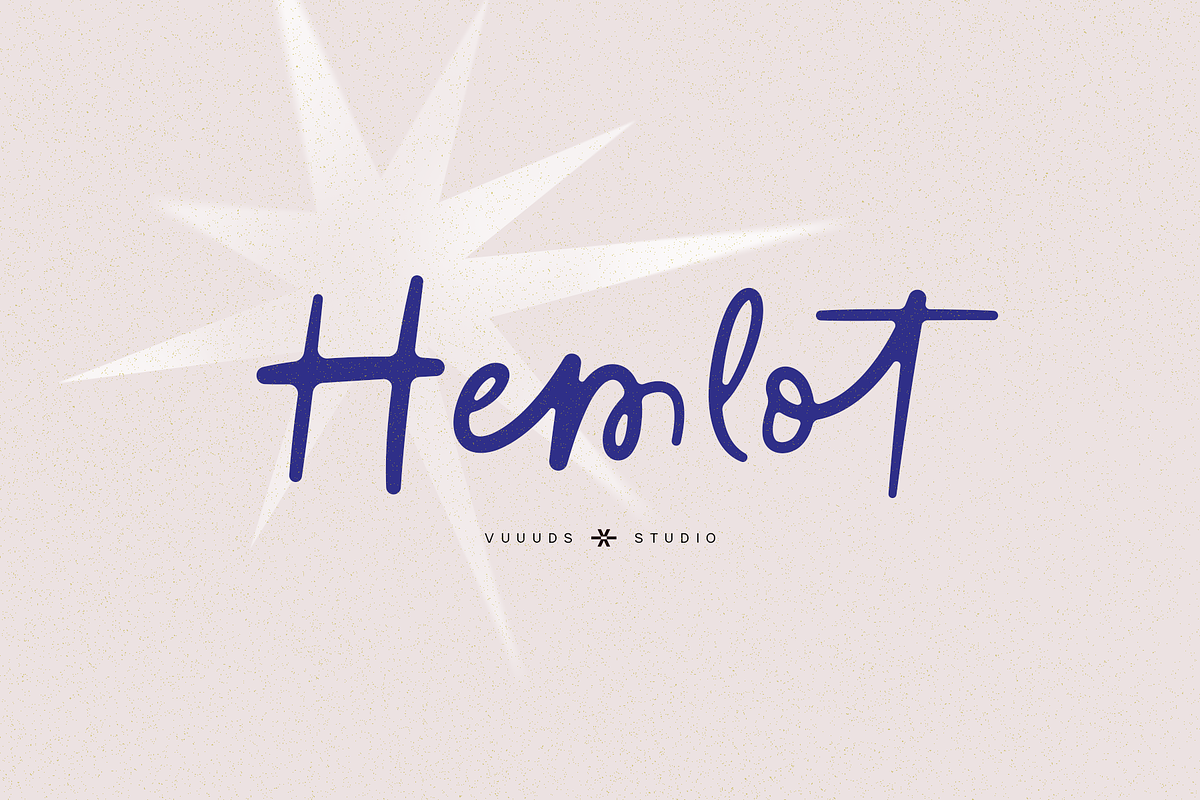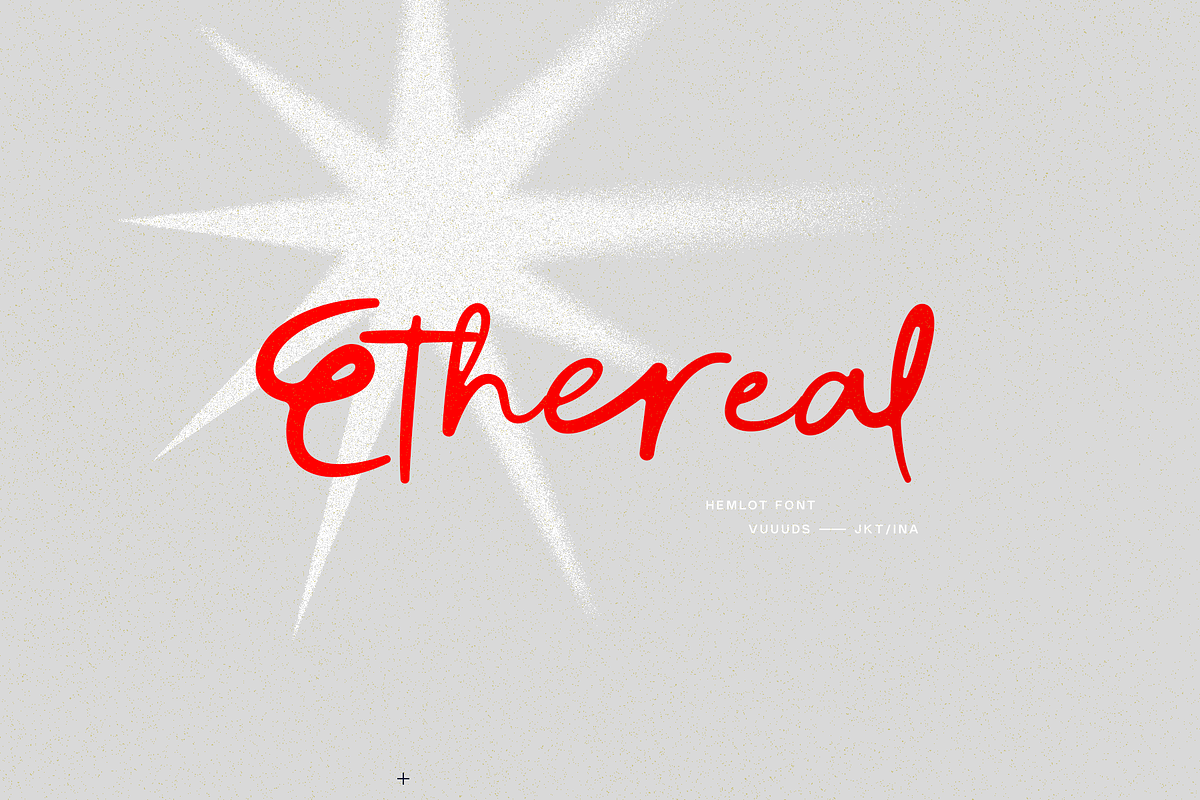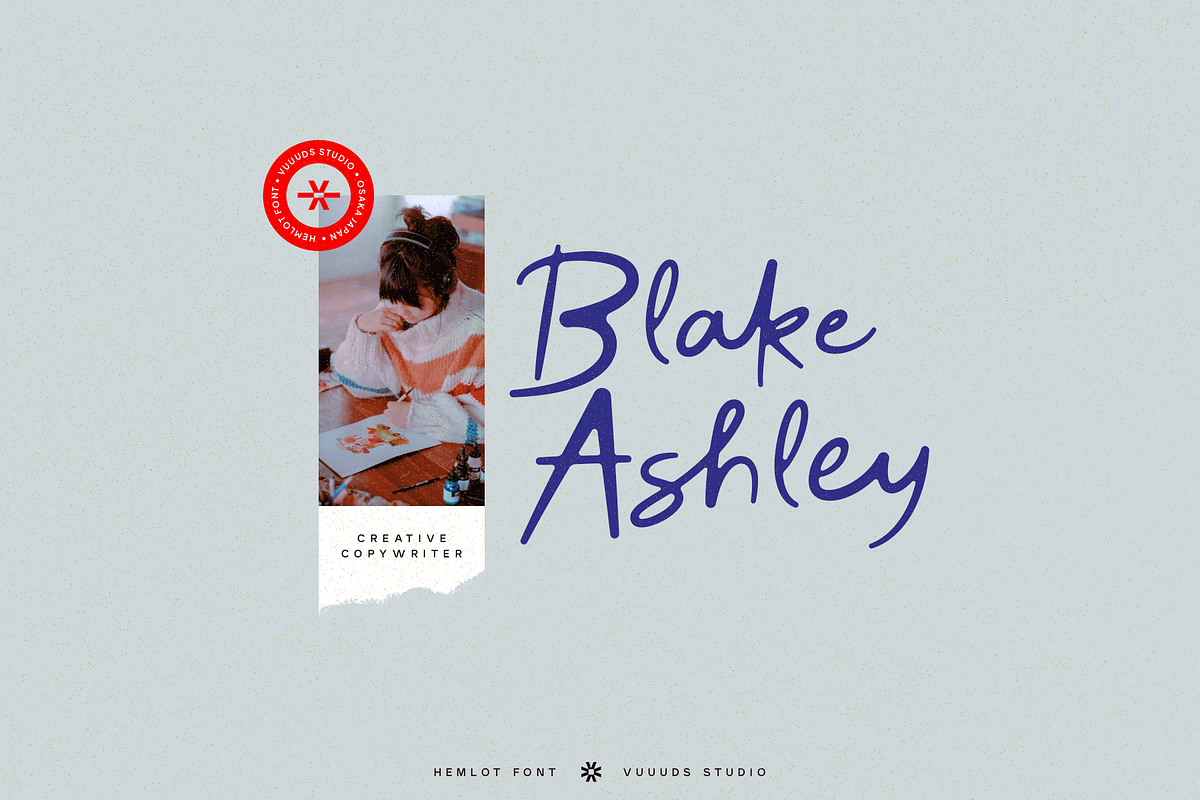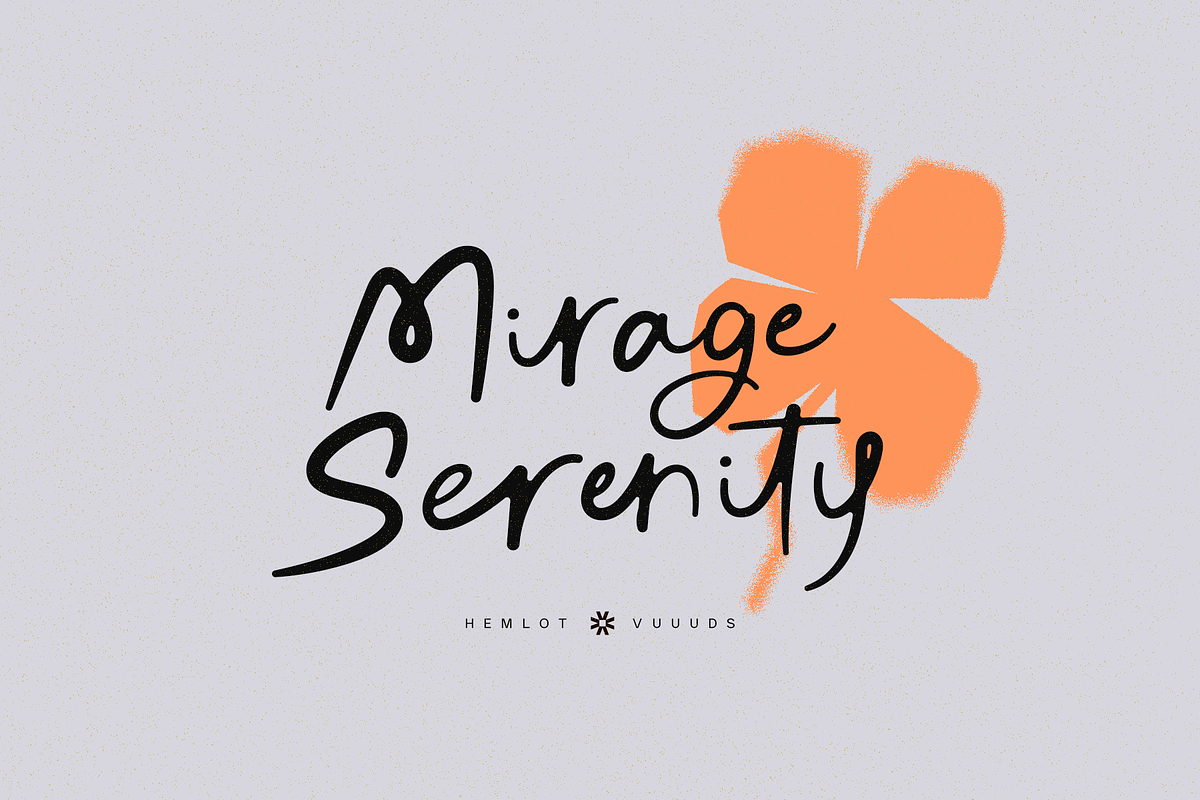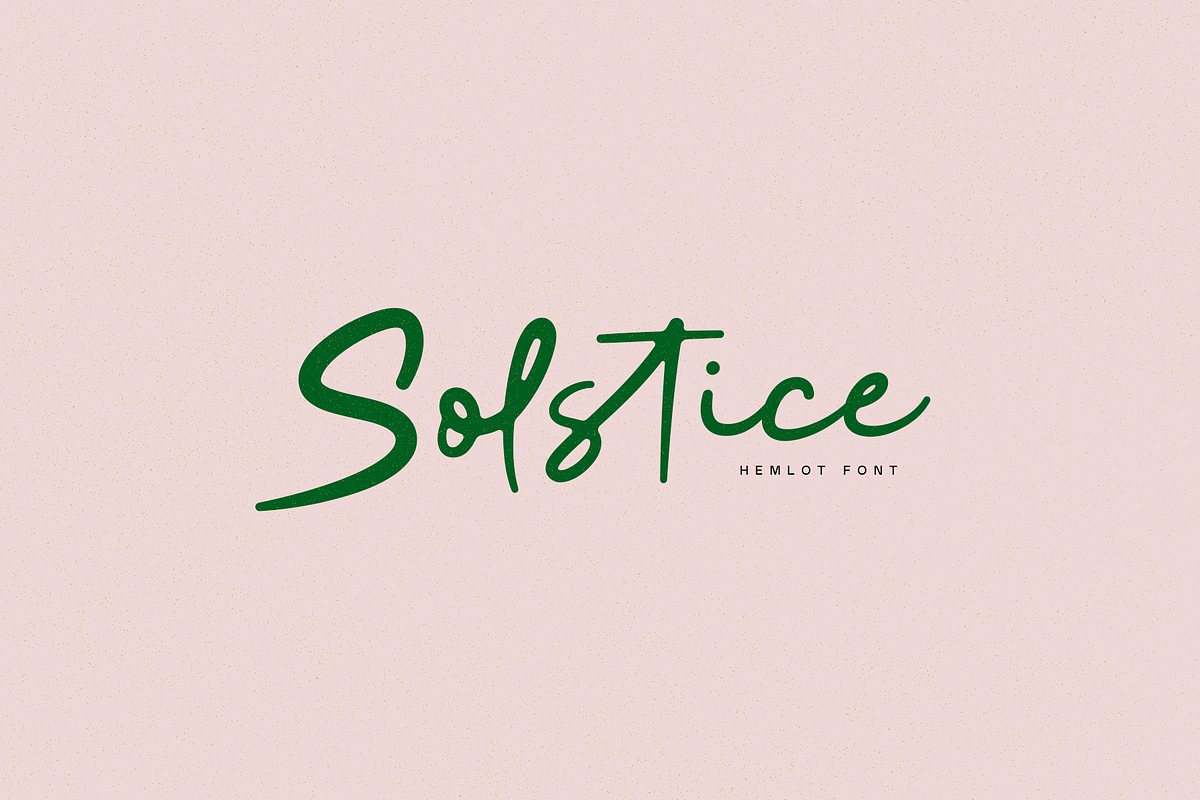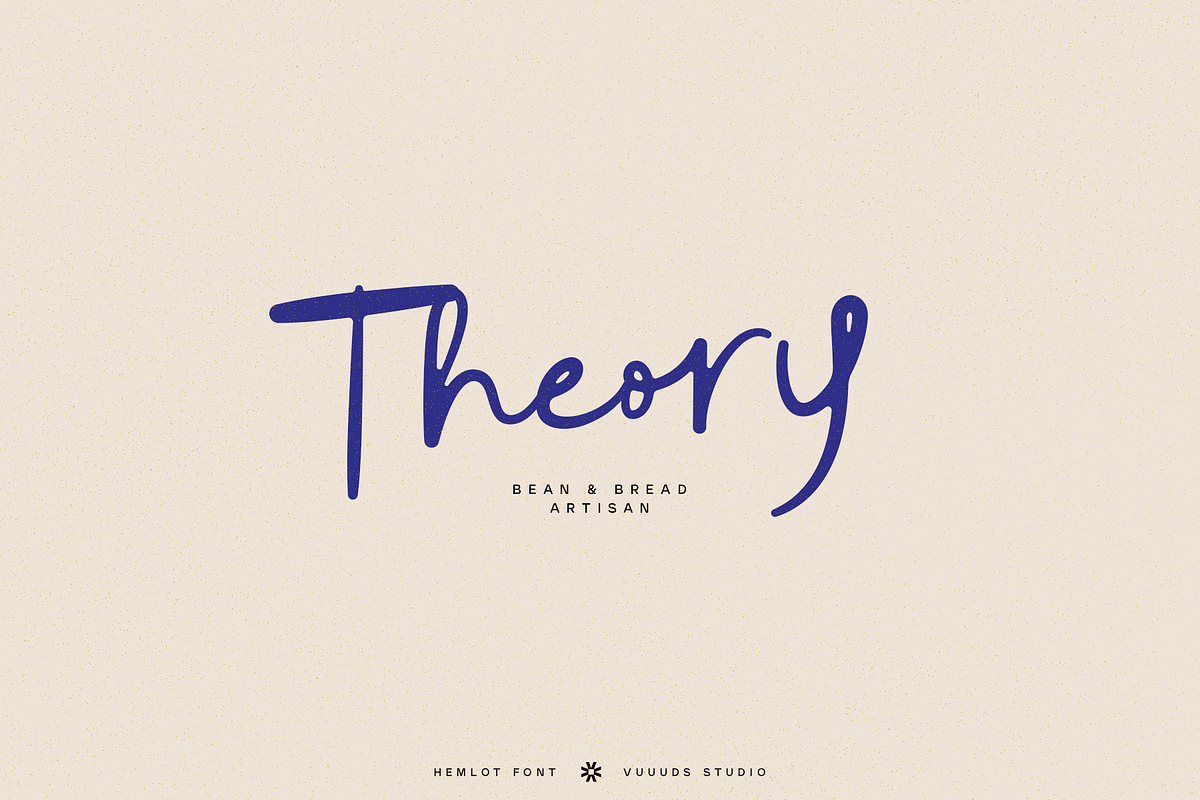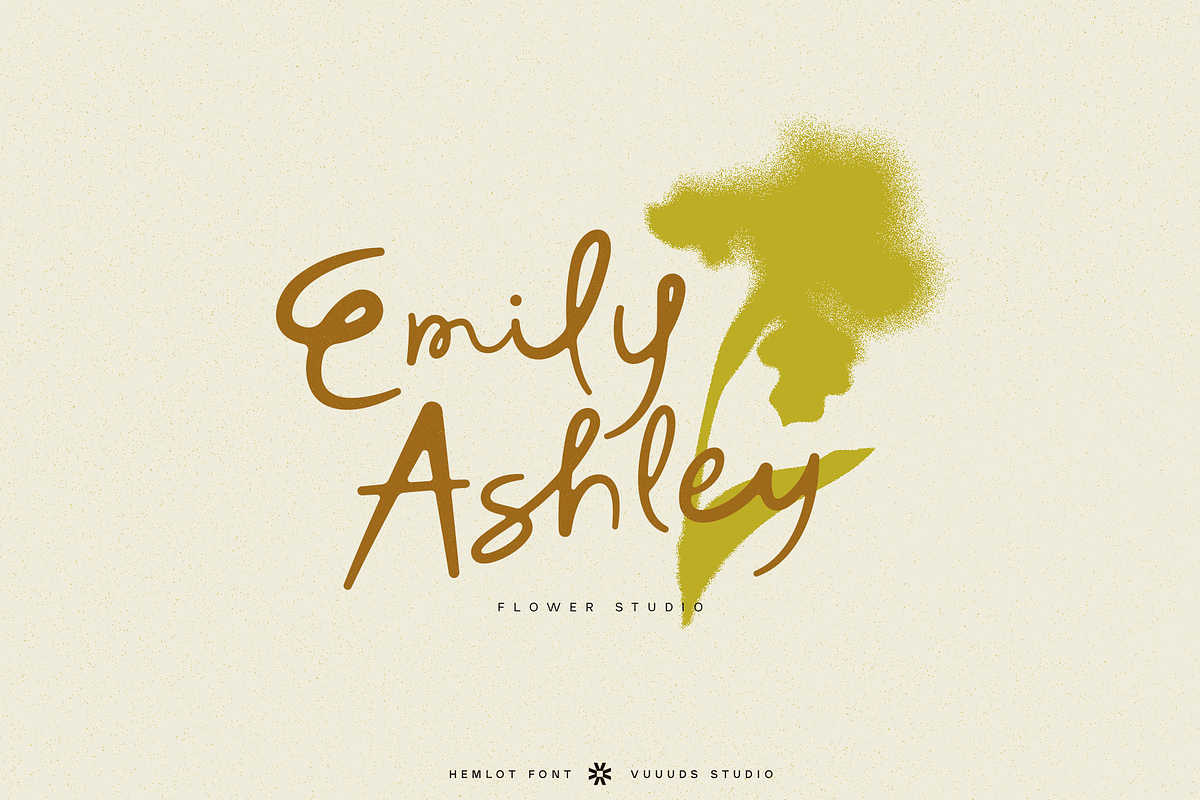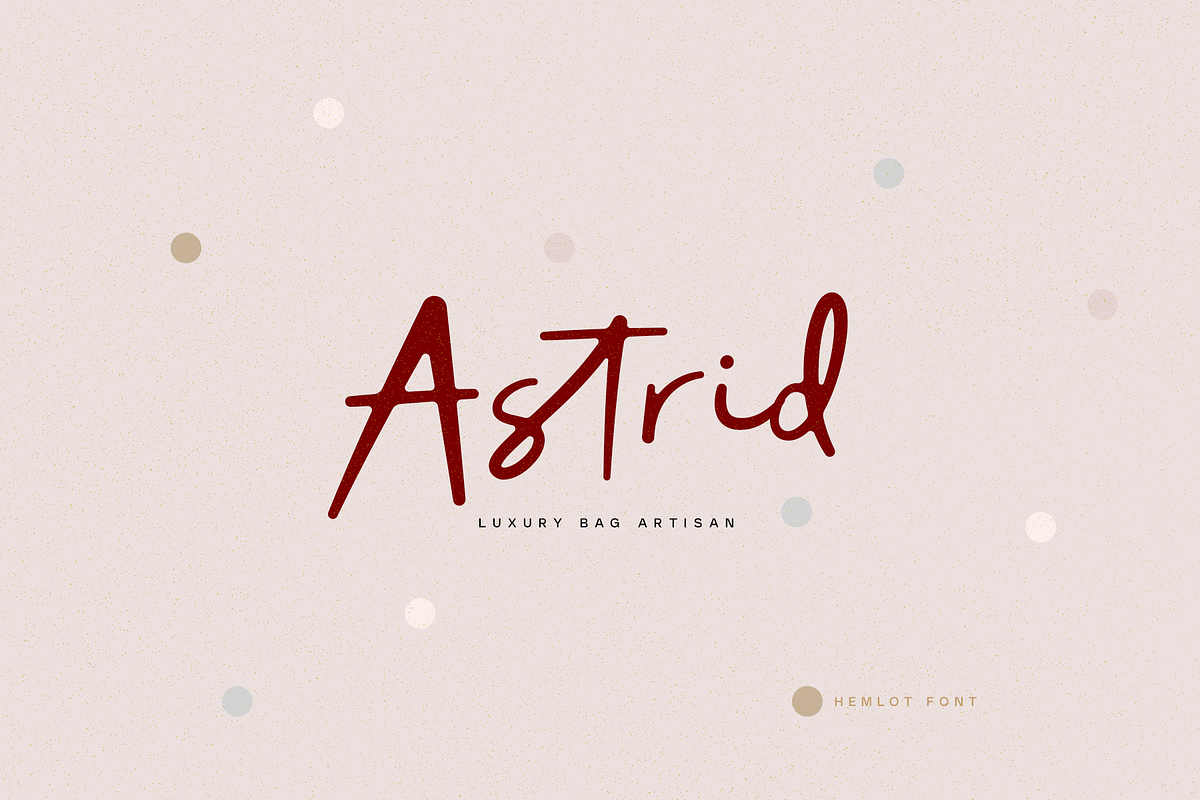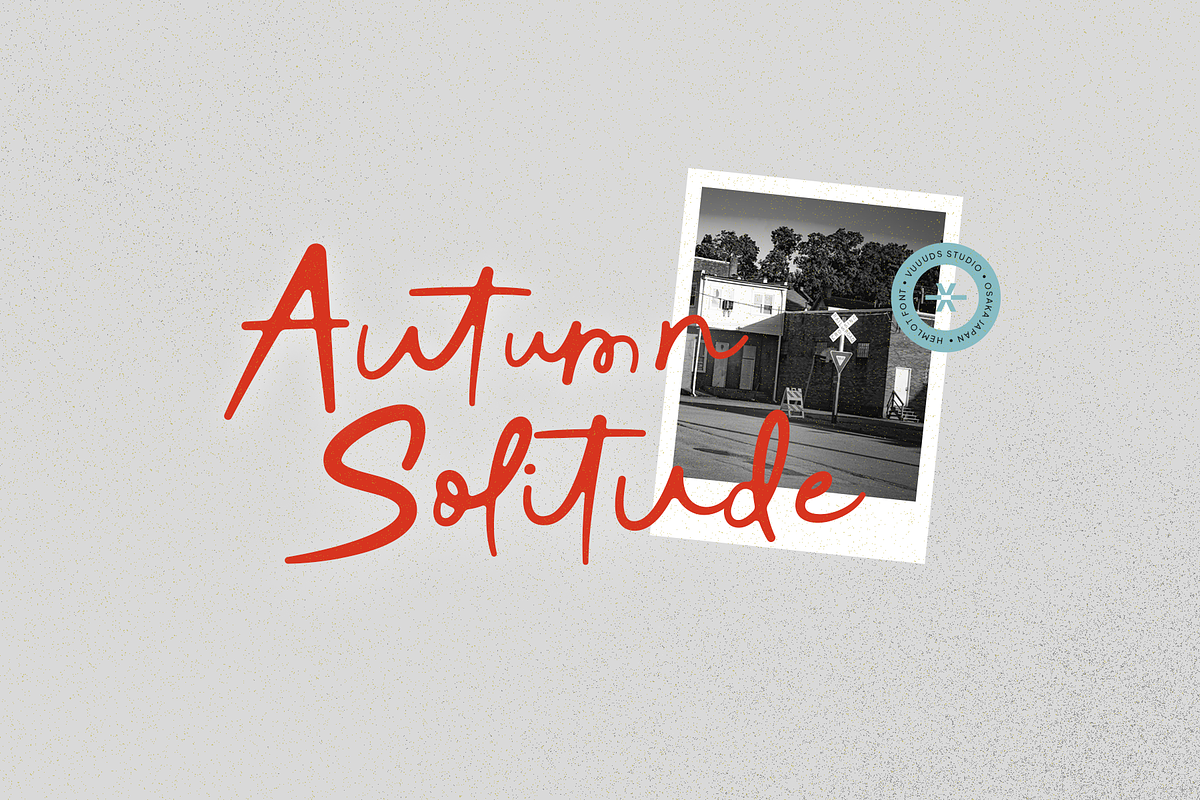
Hemlot
Elevate your designs with Hemlot, a captivating script typeface defined by its authentic handmade details and soft, rounded corners. Crafted to blend warmth with sophistication, Hemlot features an exceptionally rich library of unique ligatures and stylistic alternates, allowing you to create truly custom-feeling, flowing typography effortlessly. This elegant and versatile font is the perfect choice for high-impact projects, including movie posters, branding identities, logo design, signature style graphics, headlines, and beyond. Add a touch of handcrafted elegance to your next creation with Hemlot.
Multi languages support:
ÀÁÂÃÄÅÆÇÈÉÊËÌÍÎÏÐÑÒÓÔÕÖØÙÚÛÜÝŸàáâãäåæçèéêëìíîïðñòóôõöøùúûüýÿ ߀£¥©®™•